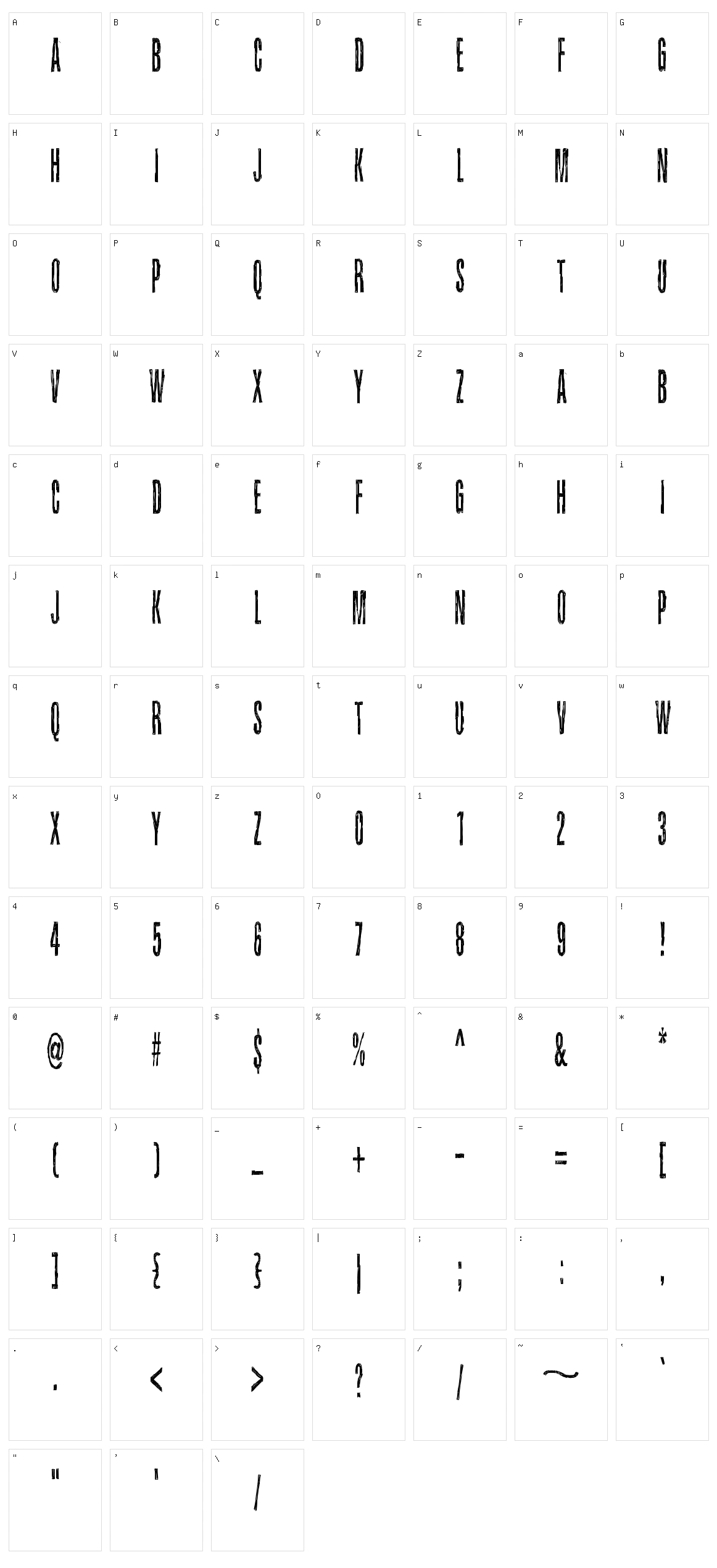
The free font Sound of silence is carefully designed by junkohanhero, showcasing a thoughtful balance of creativity and usability and falls under the Eroded font style. When you download the ZIP file, it contains only 406.73 KB of font files, making it lightweight and quick to download. Please review the license details below to understand permitted usage and distribution rights. If license information is not available, we recommend using this font for personal projects only or contacting the author directly for commercial usage permissions.